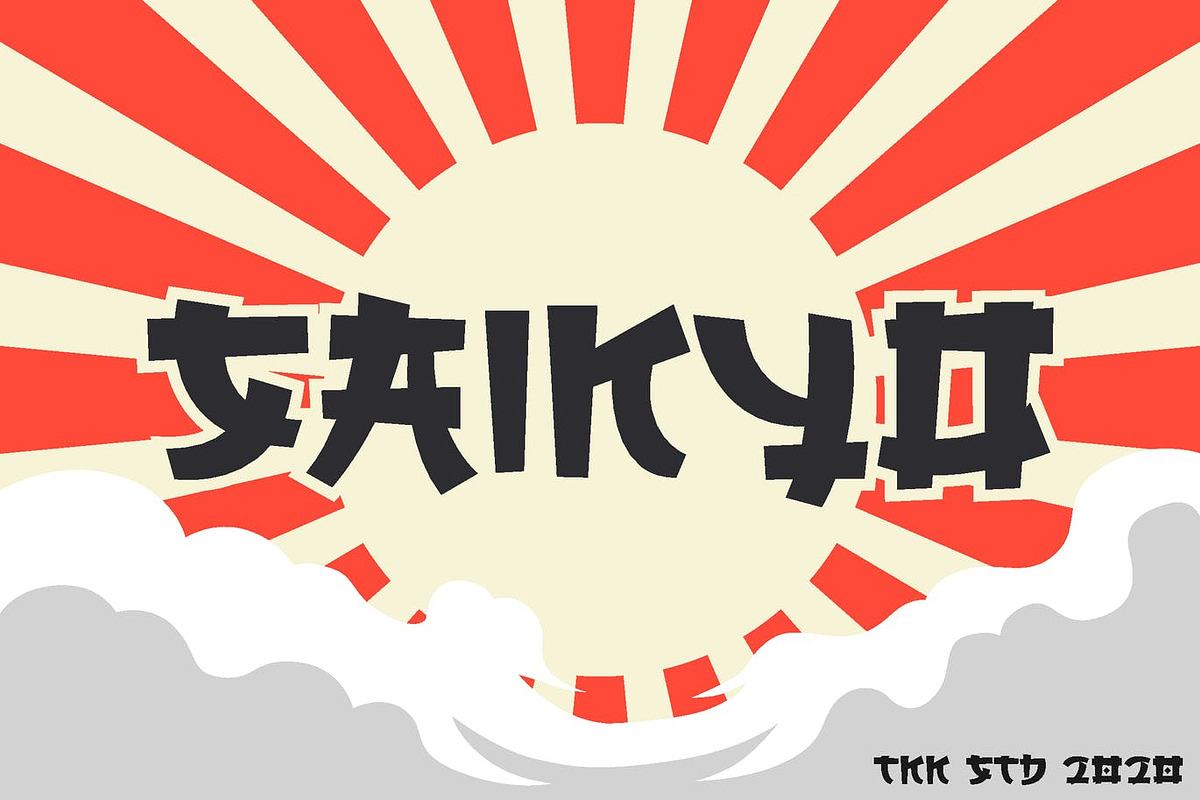
SAIKYO - Japanese Font Free Download
SAIKYO – Japanese Font Free Download is a bold, stylized typeface inspired by traditional Japanese brush strokes and modern kanji aesthetics. Perfect for anime titles, martial arts posters, Asian cuisine branding, gaming interfaces, and cultural event materials, this font delivers an authentic and powerful visual presence. Its sharp angles and dynamic flow capture the energy and elegance of Japanese design.
Unlock the strength of your visuals with SAIKYO – Japanese Font Free Download and bring a touch of East Asian artistry to your next project. This typeface is ideal for creatives looking to make a statement with cultural flair and modern edge.